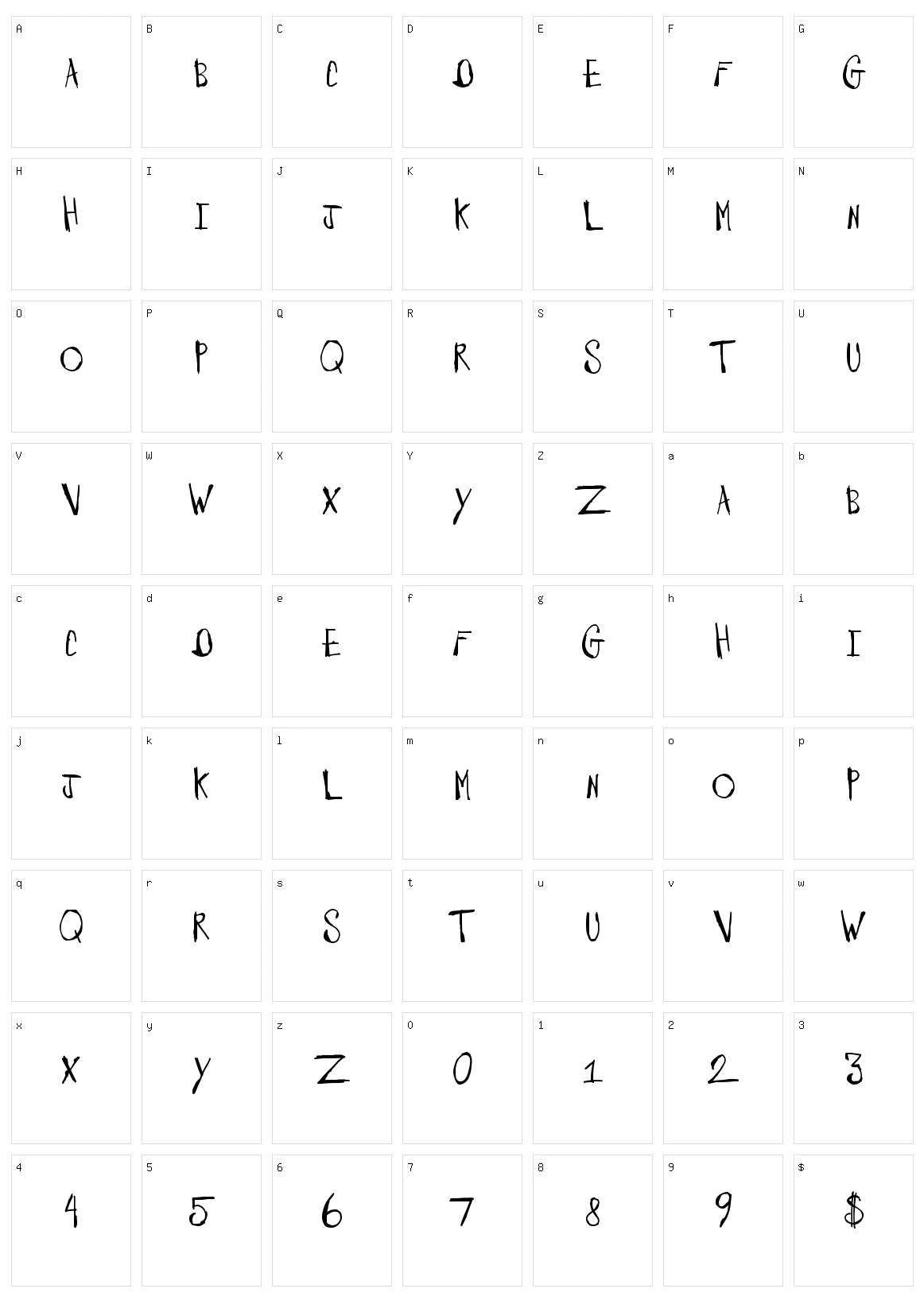
The free font Barnyard Massacre is carefully designed by Xerographer Fonts, showcasing a thoughtful balance of creativity and usability and falls under the Horror font style. When you download the ZIP file, it contains only 17.16 KB of font files, making it lightweight and quick to download. Please review the license details below to understand permitted usage and distribution rights. If license information is not available, we recommend using this font for personal projects only or contacting the author directly for commercial usage permissions.